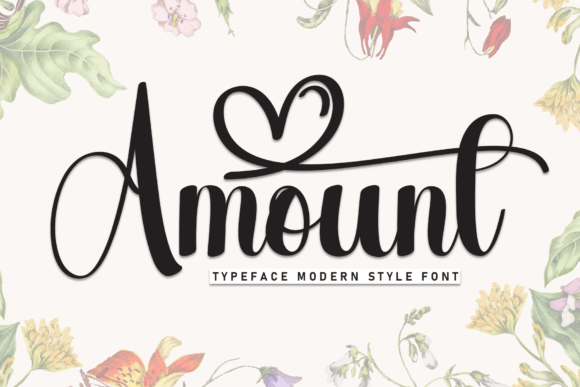
The Sweet Spot: Discovering the Charm of Amount Font
I’ll never forget the moment I stumbled upon the perfect font for a wedding invitation project. I was on a tight deadline, and my client was specific about the tone they wanted to convey: sweet, friendly, and fun. As I scrolled through my font library, I felt like I was striking out. That was until I discovered Amount Font. ✨ It was love at first sight! The handwritten curves and playful vibe instantly resonated with me, and I knew I had found the perfect fit.
An Honest Review: The Good and the Quirky
- ✨ Sweet and Friendly Vibe: Amount Font exudes warmth and approachability, making it ideal for projects that require a personal touch.
- ✅ Cute and Fun: This font is perfect for designs that need a playful twist, such as wedding invitations, greeting cards, or children’s party materials.
- 💕 Handwritten Charm: The font’s handwritten curves and imperfections give it a unique, human touch that sets it apart from more traditional fonts.
While Amount Font is a delightful addition to any design project, there are a few quirks to be aware of: 🤔
- ⚠️ Limited Use in Body Text: Due to its playful nature, Amount Font might not be the best choice for lengthy body text. It’s better suited for headings, titles, or short paragraphs.
- ⚠️ Glyph Limitations: While the font has a range of glyphs and alternates, it might not have every special character or symbol you need. Be sure to check the font’s capabilities before committing to a project.
The Designer Inspiration Behind Amount Font
Amount Font was designed with the intention of creating a sweet and friendly font that would bring a touch of warmth to any design project. The designer aimed to craft a font that would evoke feelings of joy and playfulness, while still maintaining a level of sophistication and elegance. 💕
Q: What type of projects is Amount Font best suited for?
A: Amount Font is ideal for designs that require a sweet and friendly touch, such as wedding invitations, greeting cards, children’s party materials, and other fun projects.